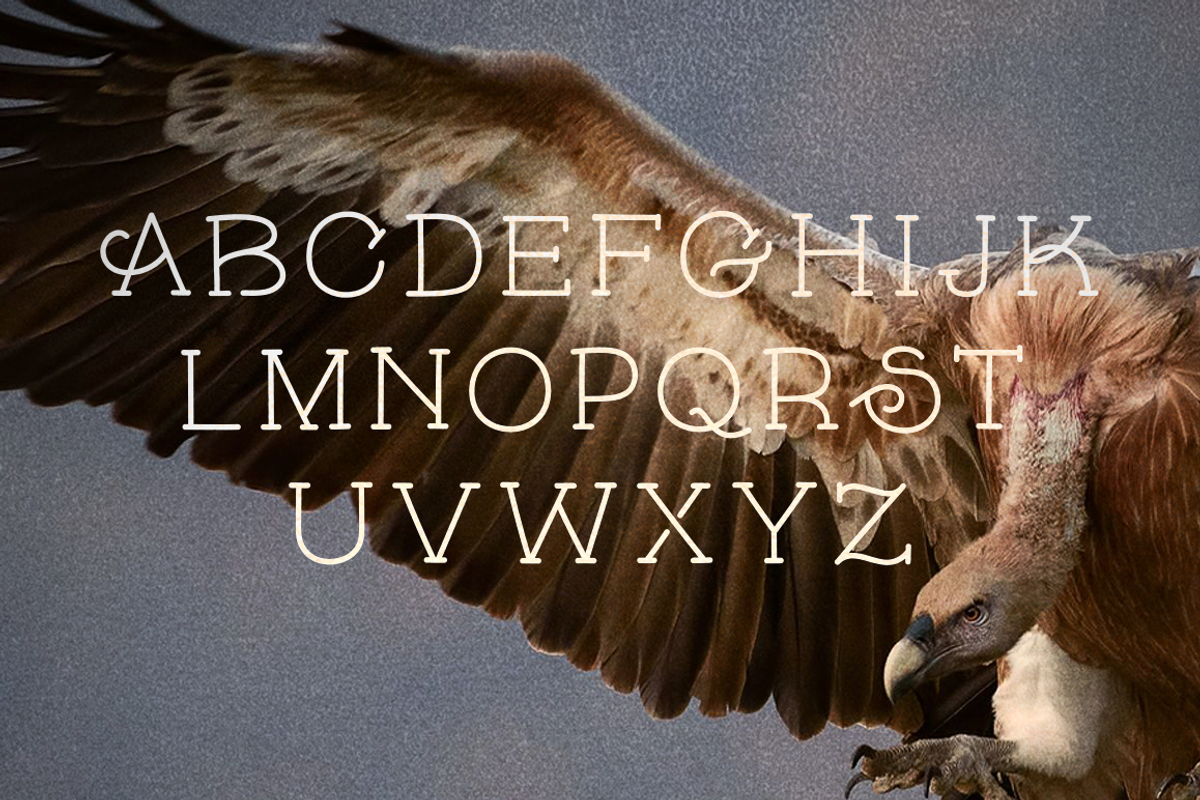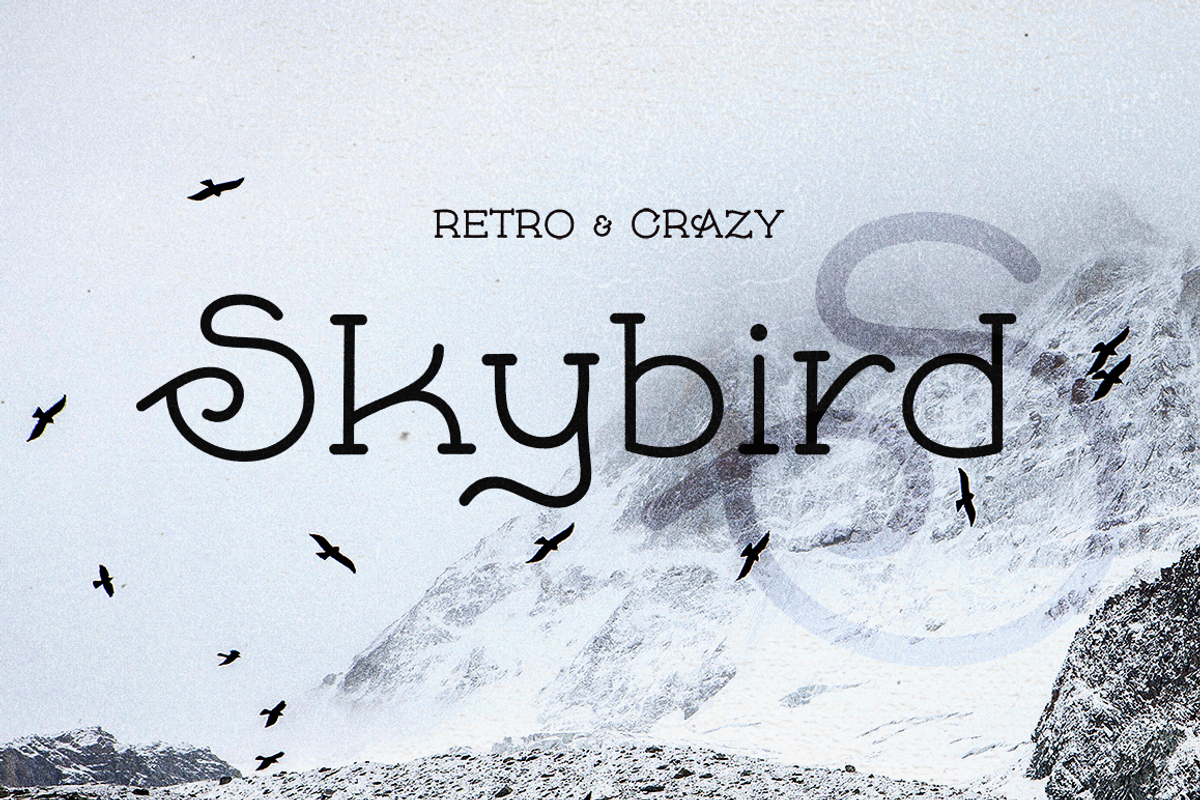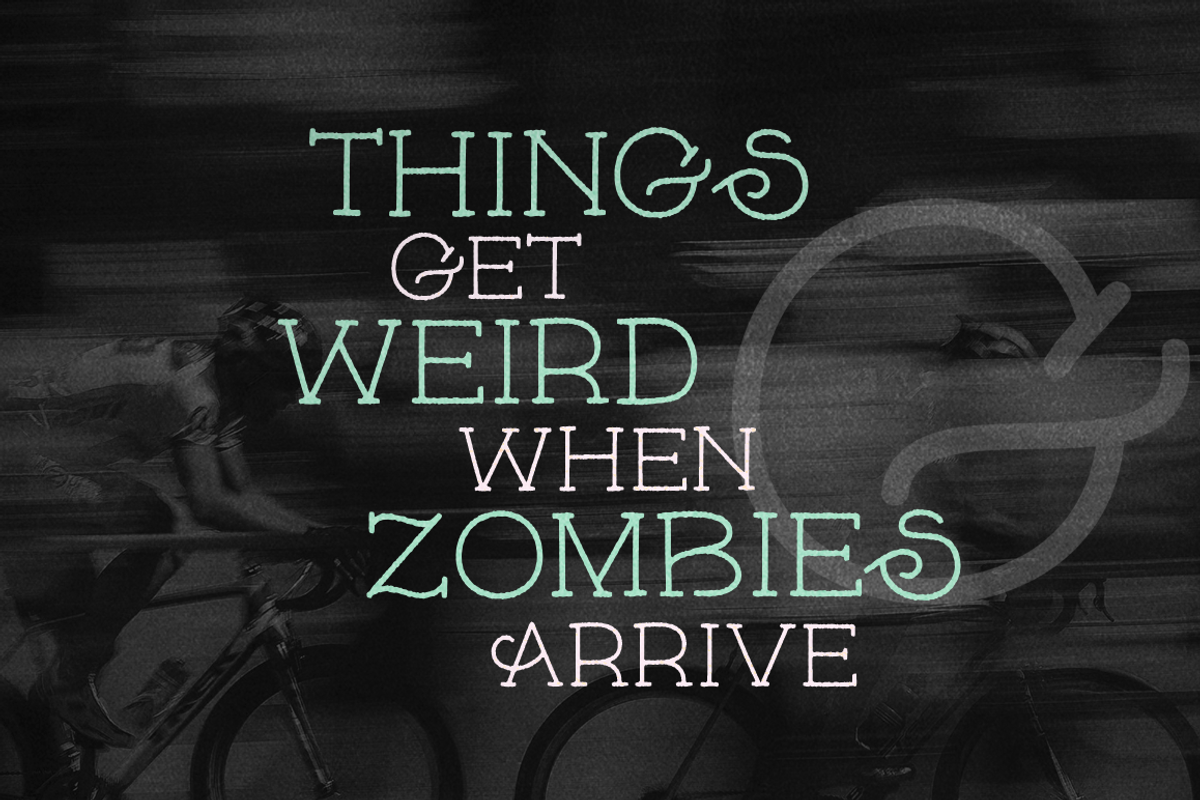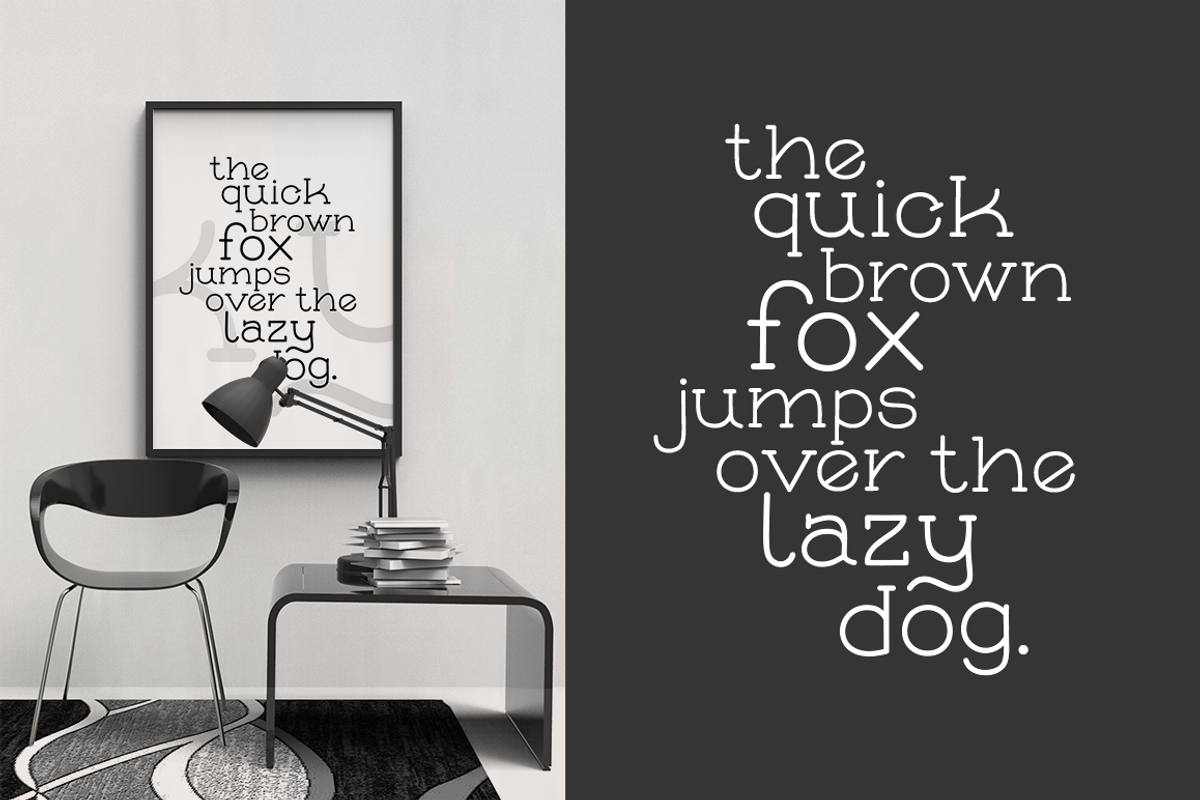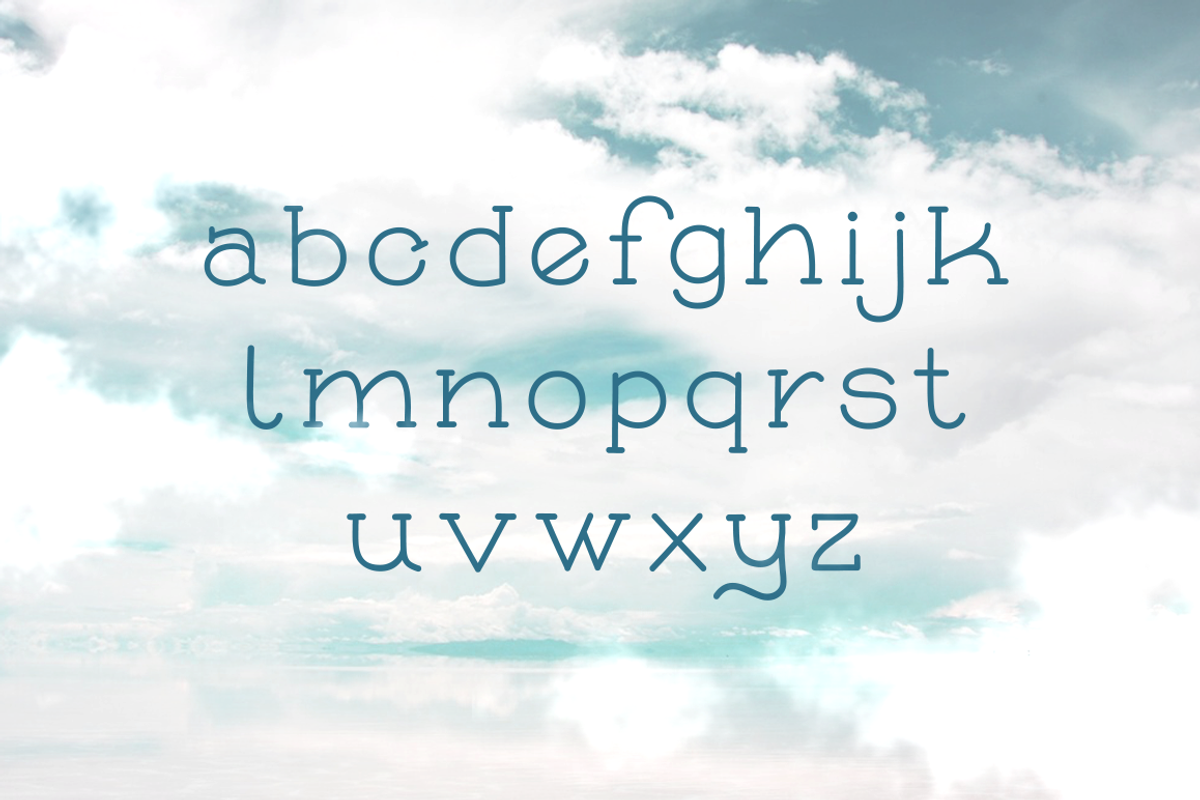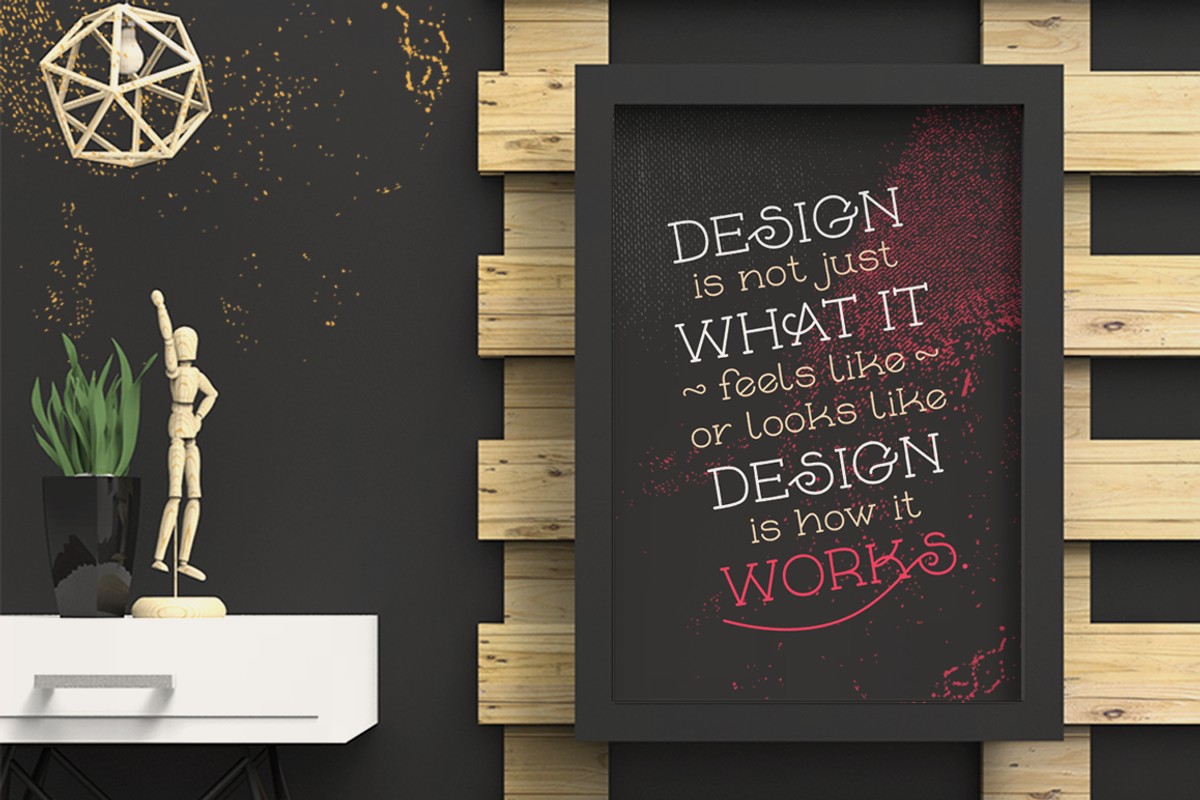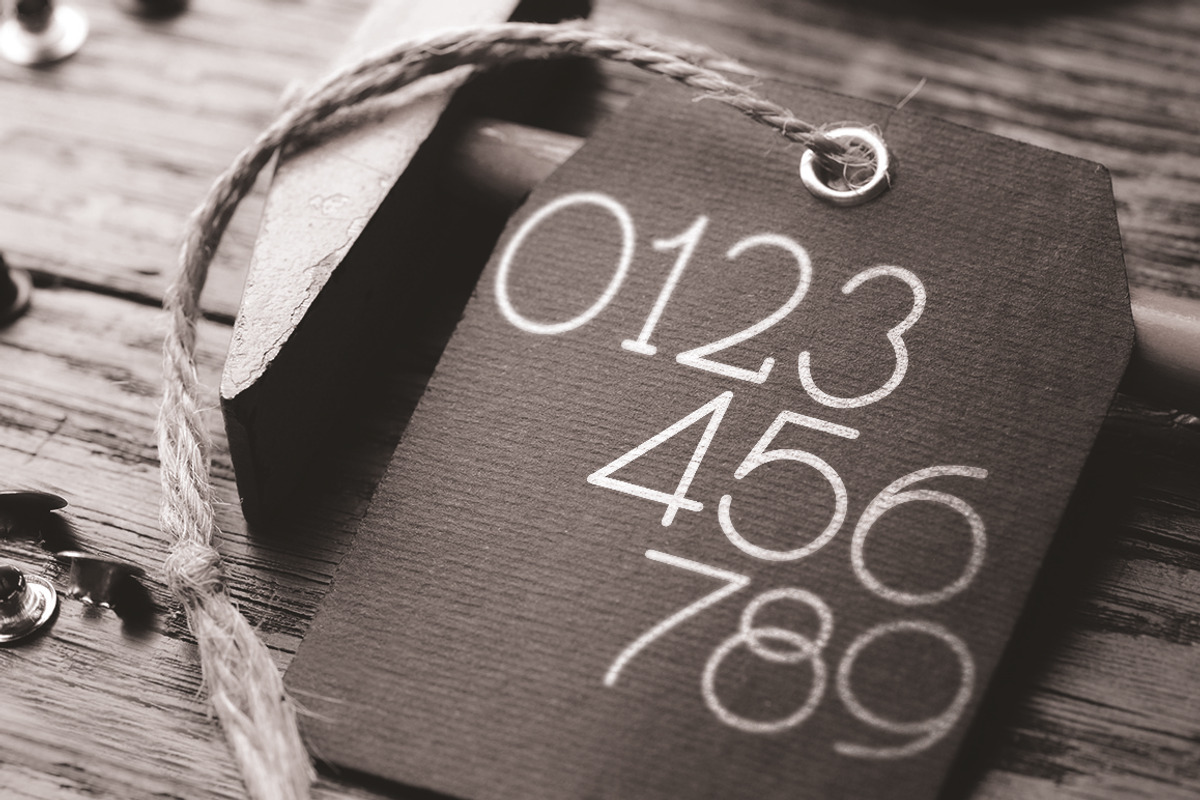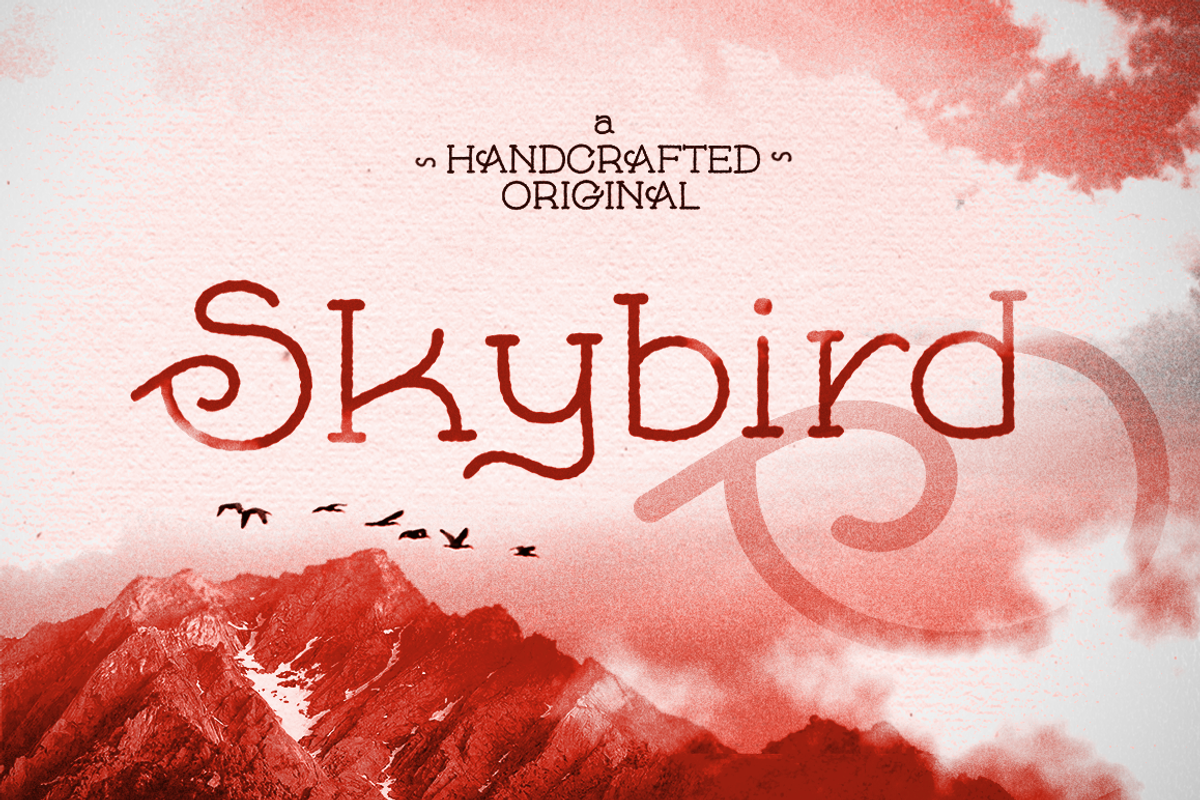
Skybird Font
Skybird Font by Shaped Fonts is a font selected for branding, posters, packaging, typography.
Why Skybird Font is worth a look
Skybird Font by Shaped Fonts fits naturally into Branding, posters, packaging, typography.